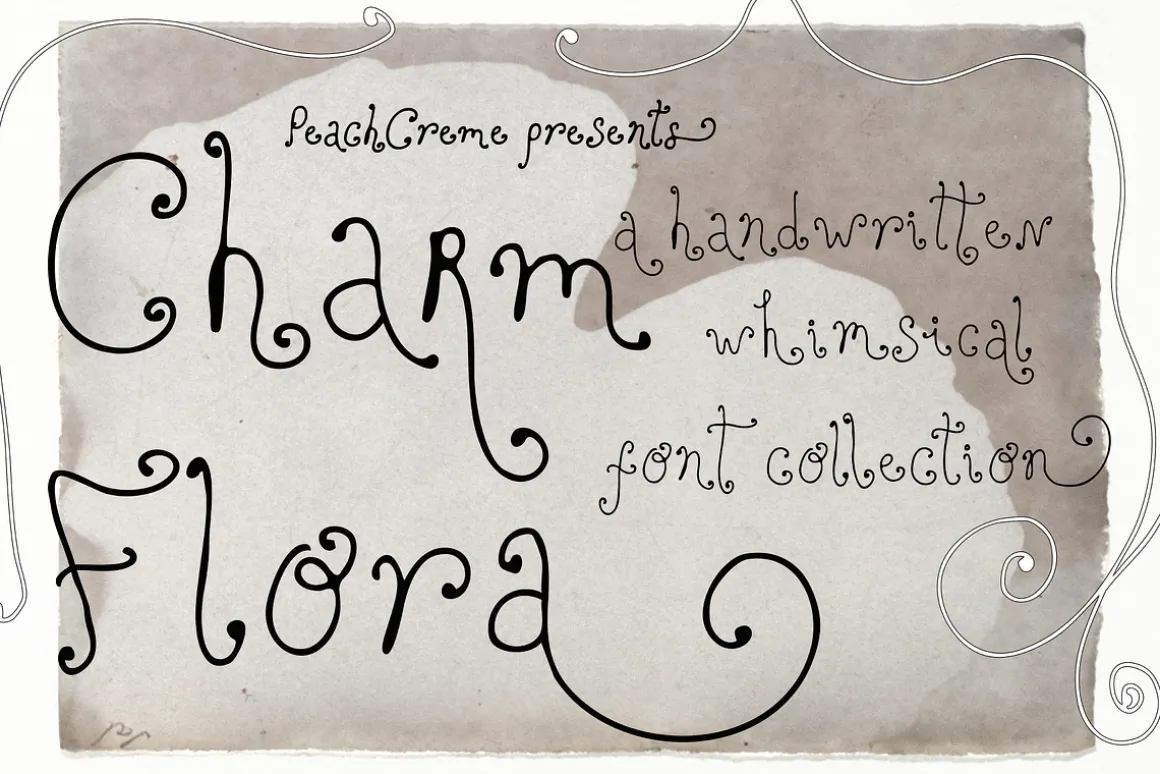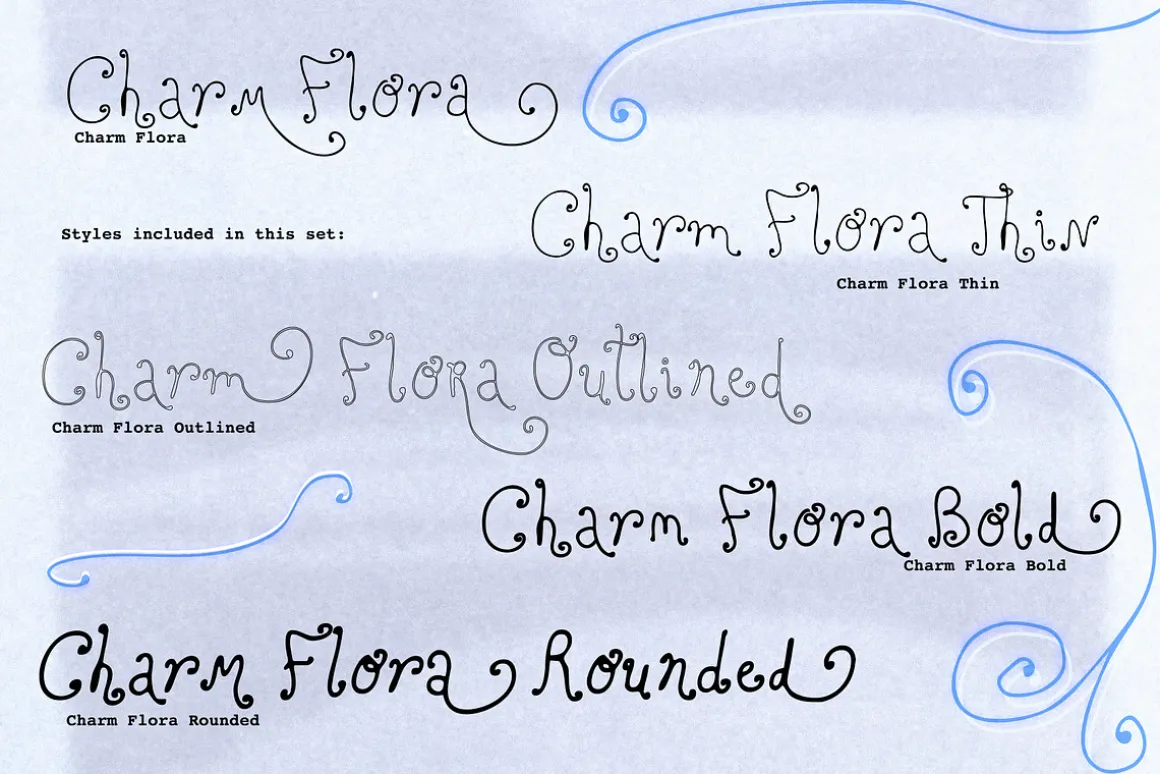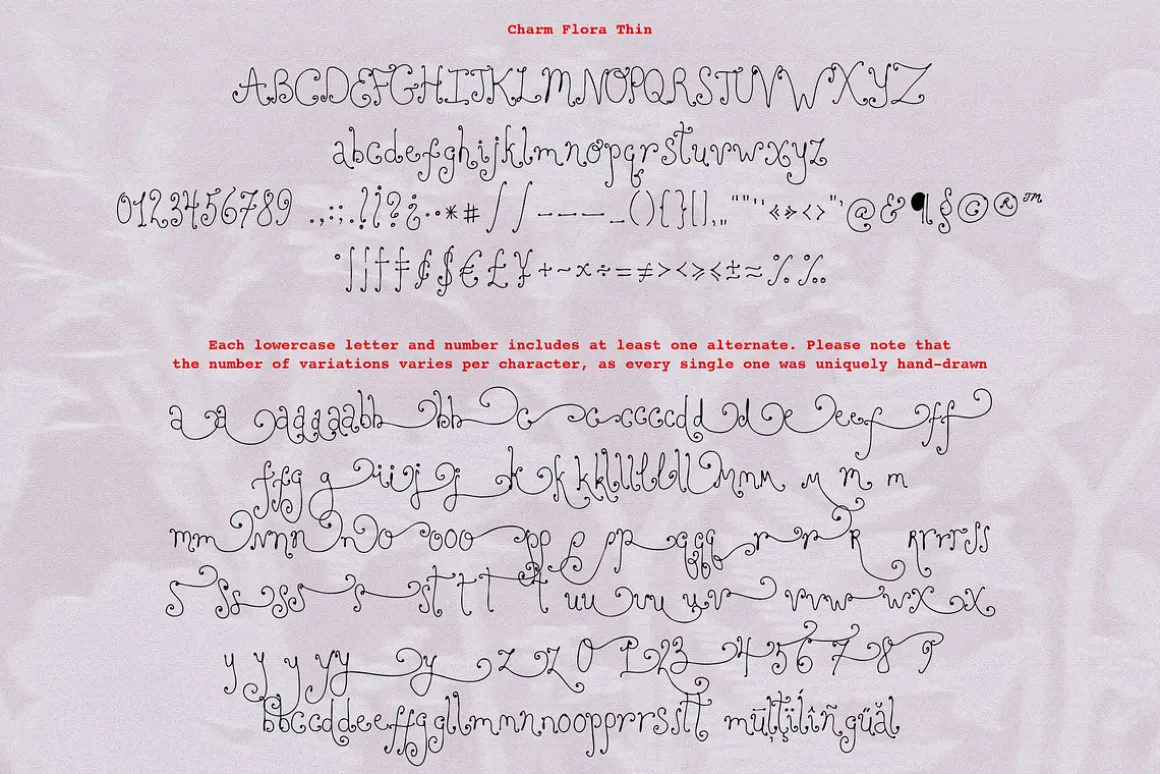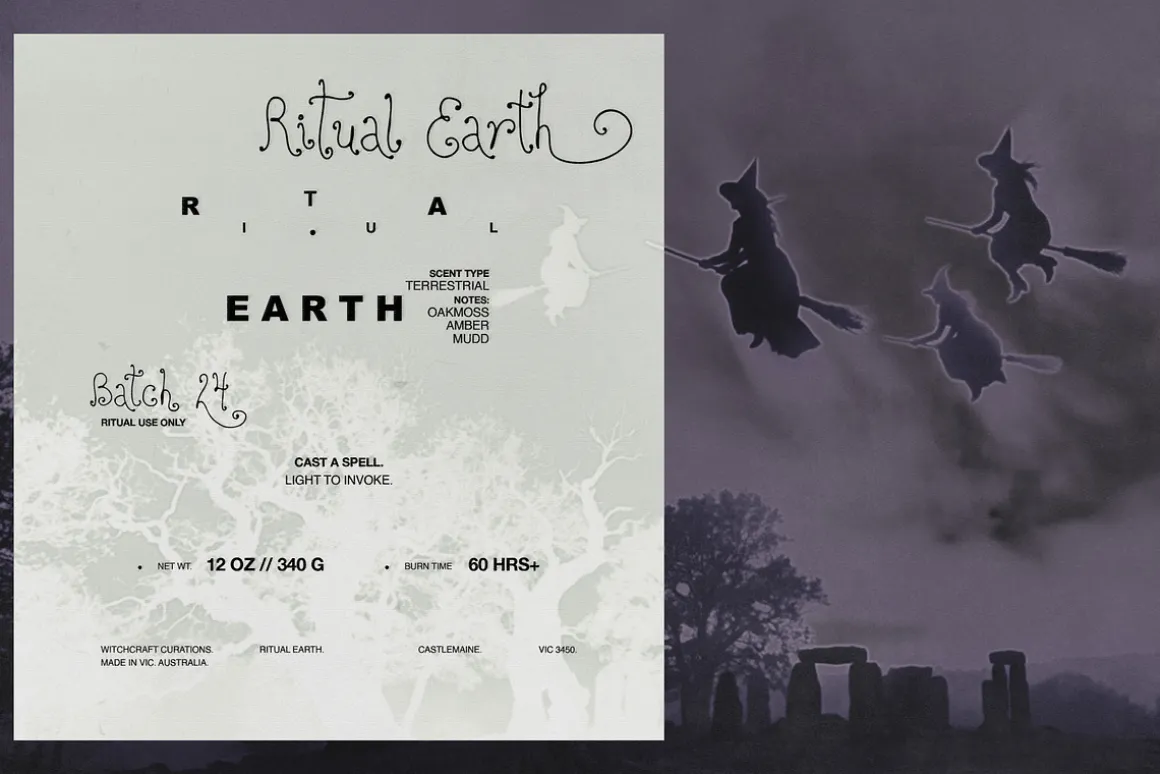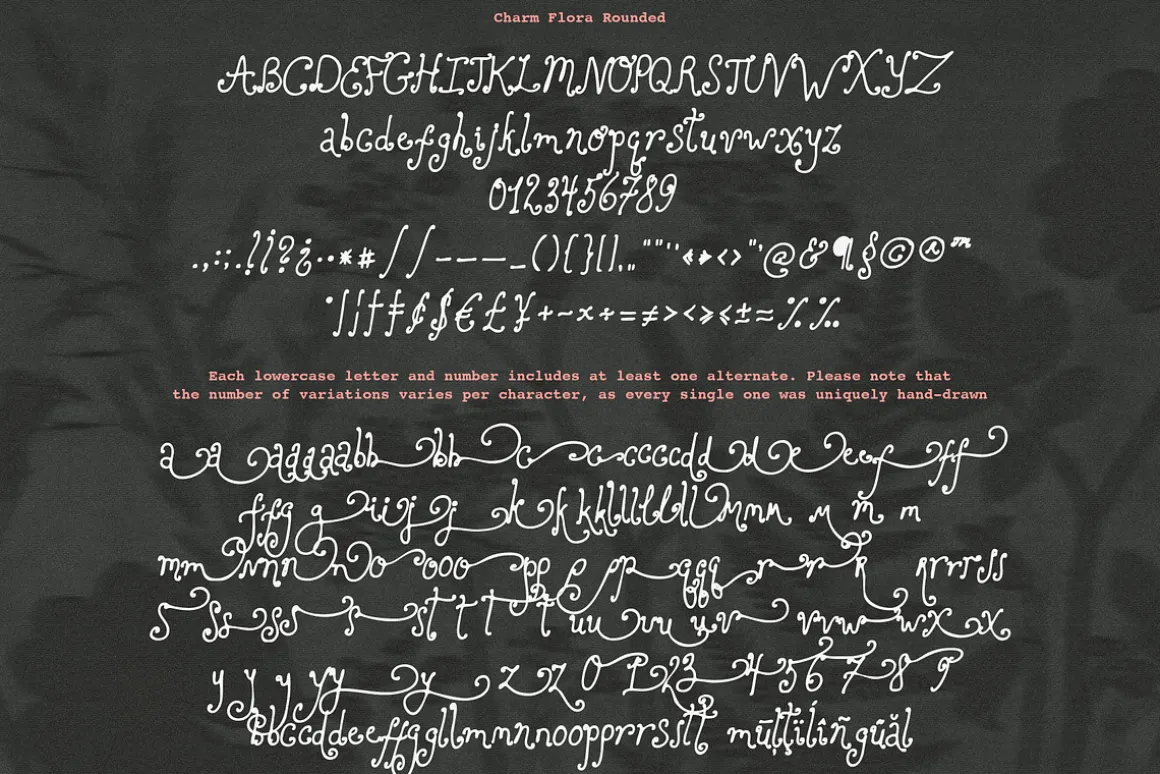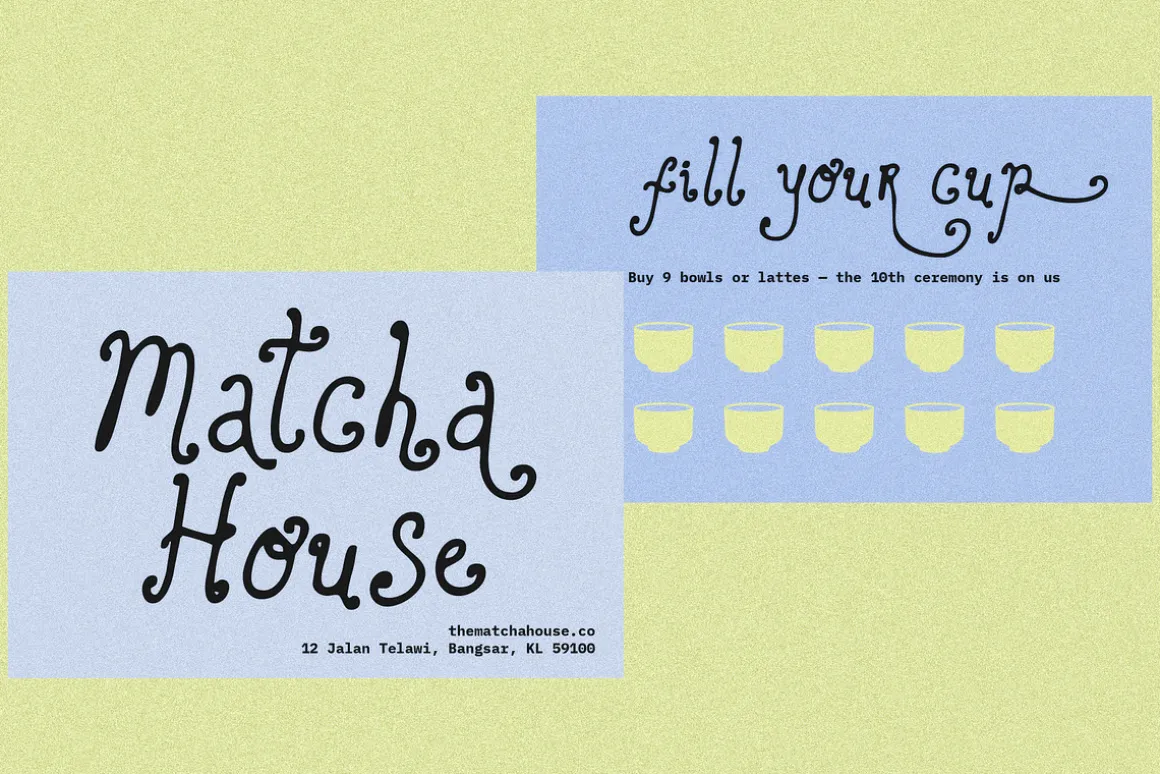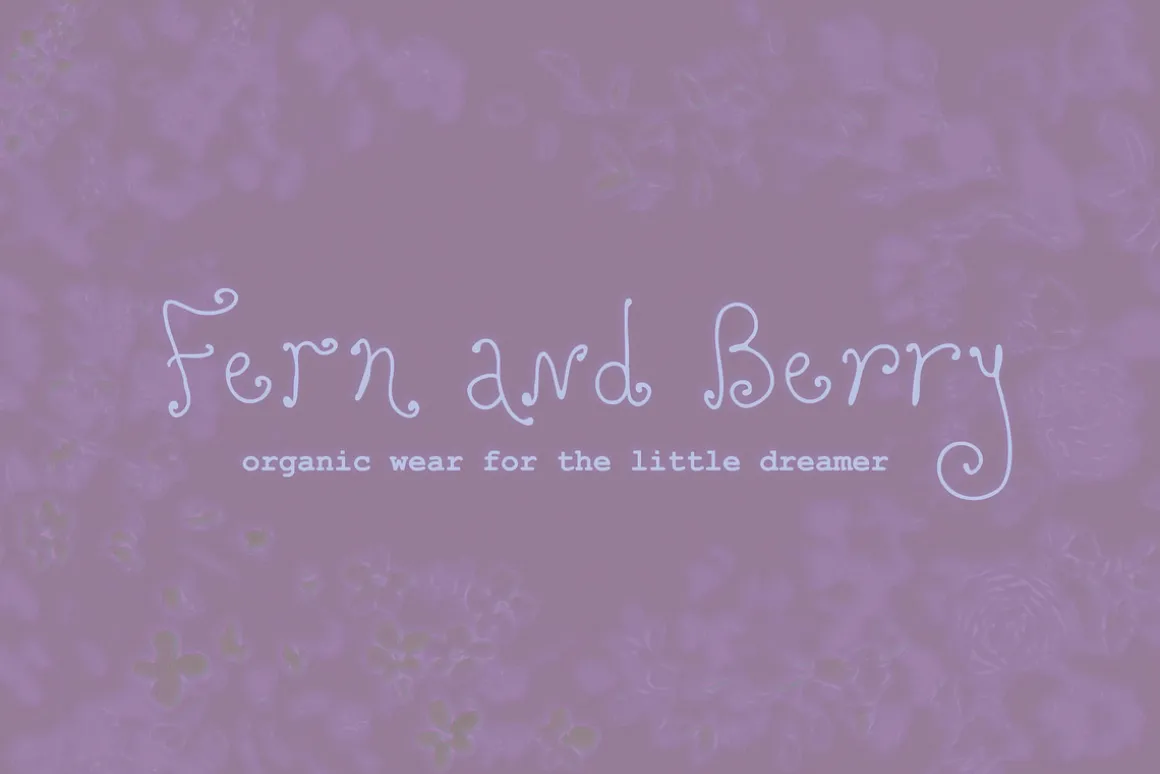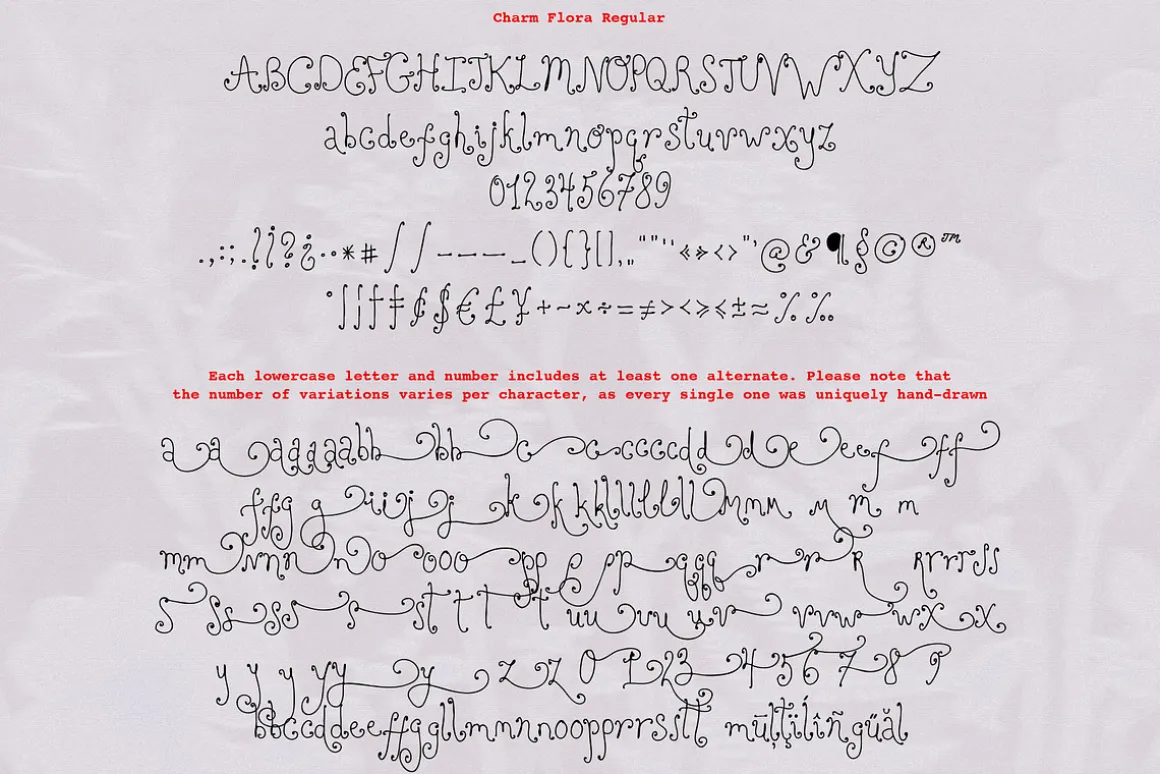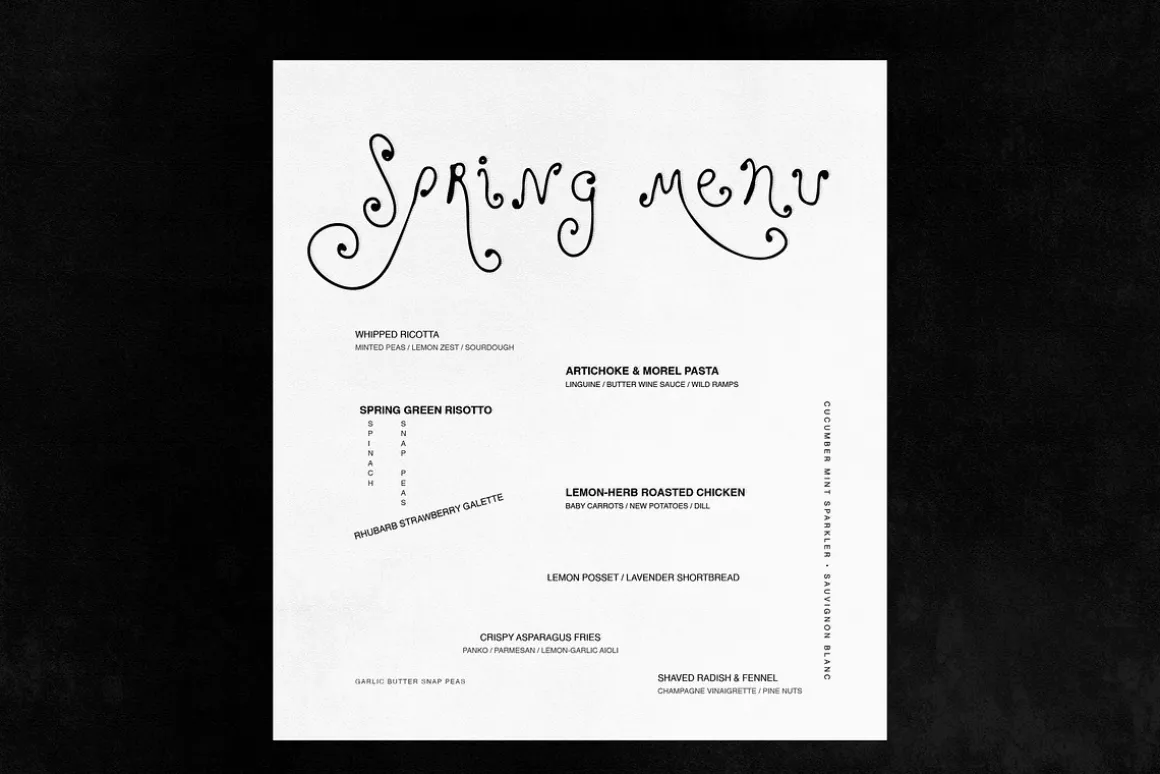
Charm Flora Font Collection
Charm Flora is a handwritten set I created for designs that need a specific indie or experimental look. It is a whimsical style, but it’s built with enough irregularity to work for projects that aren’t strictly “cute.” If you’re working on editorial layouts or alternative branding, it fits that space well.
5 Styles Included:
- Regular: The base script with high-contrast loops and thin connectors.
- Thin: A stripped-back, light version for a more minimal, fine-line look.
- Bold: A weighted version of the script for when you need more impact.
- Rounded: This style has soft, smooth edges. It’s designed with a “blur” softness that gives it an organic, rounded feel.
- Outlined (Important): This is an inner-line outline. It is drawn inside the character forms, not on the outside. This allows it to pair perfectly with the Regular style without adding any extra thickness or outside volume to the letters.
Character Variations & Alternates
Every lowercase letter and number has at least one alternate. These aren’t uniform; every single one was uniquely hand-drawn, so the endings and flourishes vary from character to character.